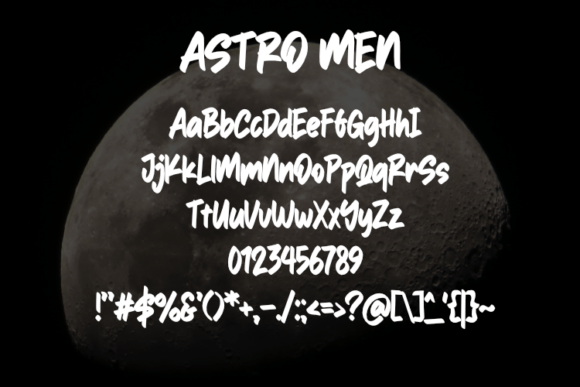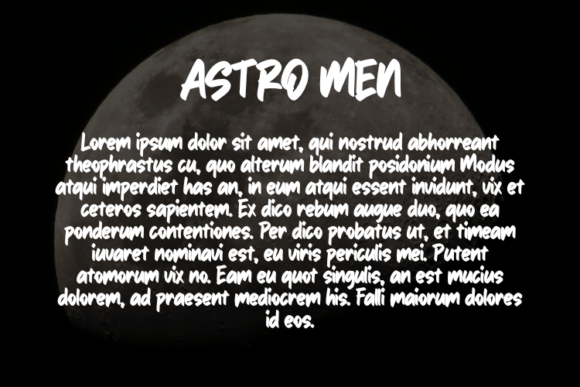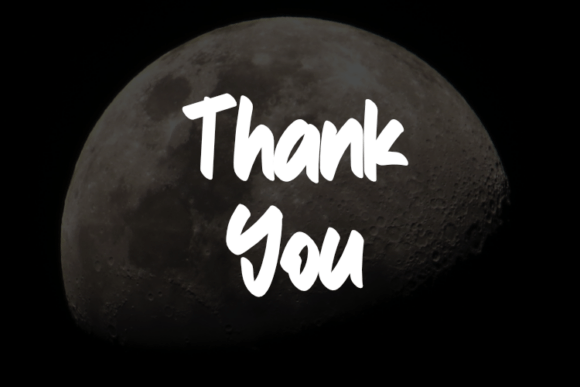
Unleash Your Creativity with ASTRO MEN Font
Have you ever stared at a blank design canvas, waiting for inspiration to strike? For many designers, that moment of creative spark is the most exhilarating part of the process. And what if I told you that a powerful tool can help unlock that spark and elevate your designs to new heights?
Enter the ASTRO MEN Font, a cutting-edge typographic masterpiece crafted specifically for garment designs. This versatile font is designed to complement all design concepts, from bold graphics to elegant typography. With its seamless compatibility with all software formats and effortless-to-use OTF file, ASTRO MEN Font paves the way for distinctive and powerful designs that leave a lasting impression.
Whether you’re a seasoned designer or just starting out, the ASTRO MEN Font is a valuable addition to your creative toolkit. Its simplicity and style make it the perfect companion for bringing your design vision to life.
Astro Men Font Key Features
- Unique Characteristics: The font features a distinctive, futuristic design with a blend of geometric and organic elements, making it ideal for science fiction, technology, and space-themed projects.
Astro Men Font Review
At first glance, the Astro Men Font catches the eye with its unique blend of modern and futuristic elements ✨. The font is a great choice for those looking to add a touch of space-age flair to their designs. The bold lines, rounded corners, and stylized numerals give it a dynamic feel that’s sure to grab attention.
Here are some specific features that stand out:
- High contrast and visibility, making it perfect for digital displays and print materials ✨
- Customizable with various font sizes, colors, and styles to fit your brand identity ✨
- Works well in both headings and body text, adding a sense of cohesion to your design ✨
- May not be the best choice for text-heavy content due to its busy, stylized design ⚠️
- Limited language support, which may restrict its use in multilingual projects ⚠️
- Some users may find the font too flashy or overwhelming, so use it sparingly ⚠️
Overall, the Astro Men Font is a fun and attention-grabbing choice for designers looking to add some visual interest to their work. While it may not be suitable for every project, it’s a great option for those looking to make a statement or add a touch of futurism to their designs.
Tips for Getting the Most Out of Astro Men Font
To get the most out of the Astro Men font, consider the following tips:
- Use the font for titles and headings to add a touch of futuristic flair.
- Combine the font with other fonts to create a unique and eye-catching design.
- Experiment with different font sizes and colors to achieve the desired effect.
The Astro Men font is commonly used for:
- Space-themed designs and graphics.
- Science fiction and futuristic projects.
- Graphic novels and comic books.